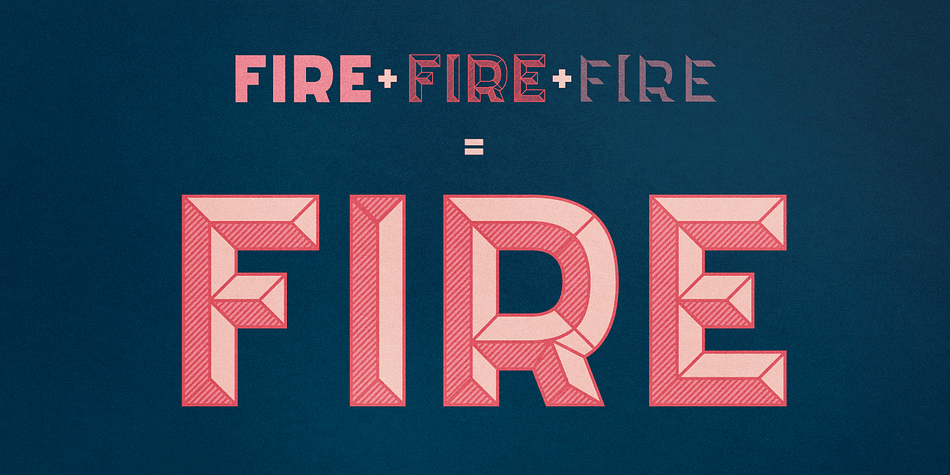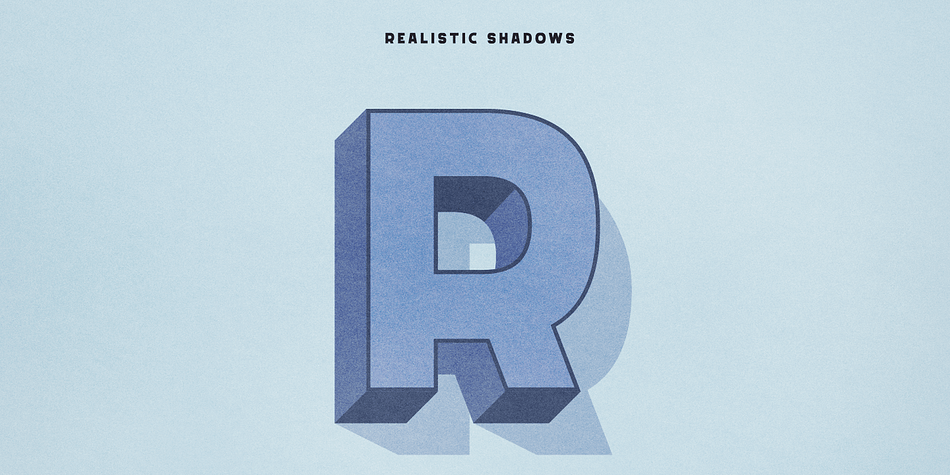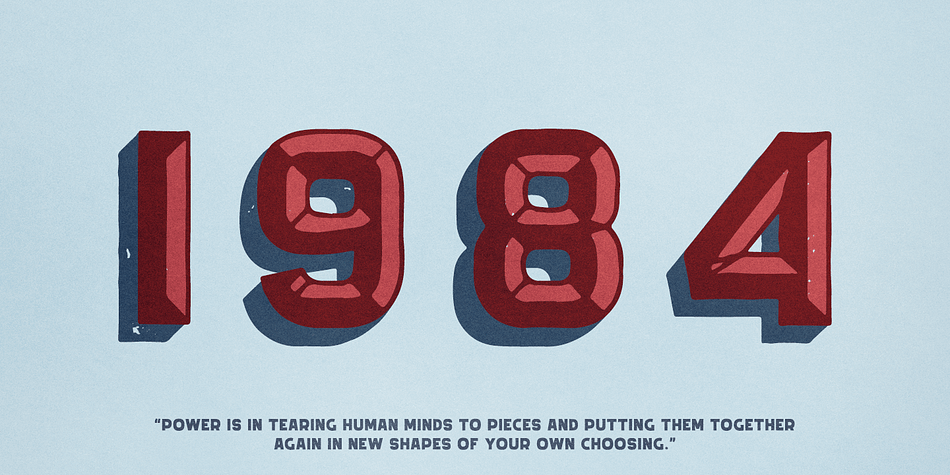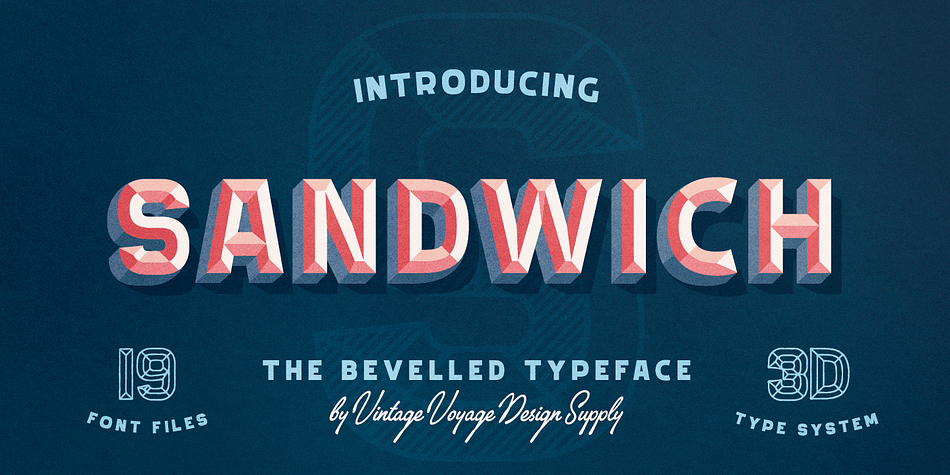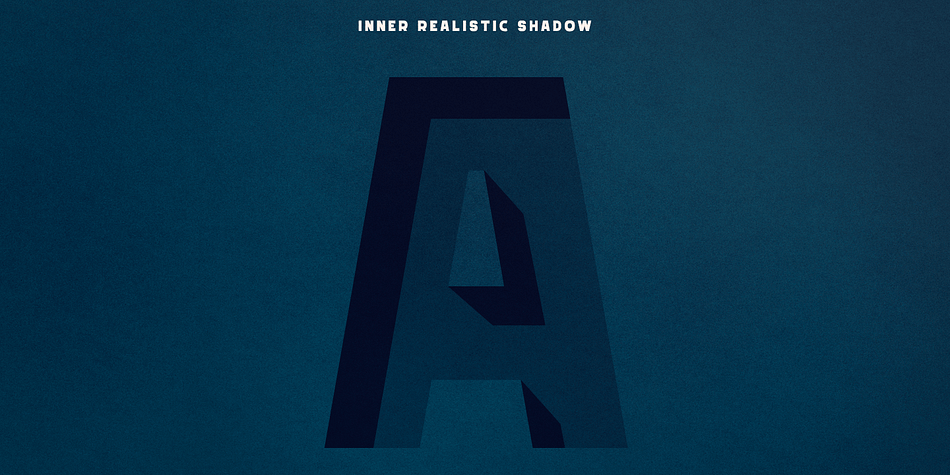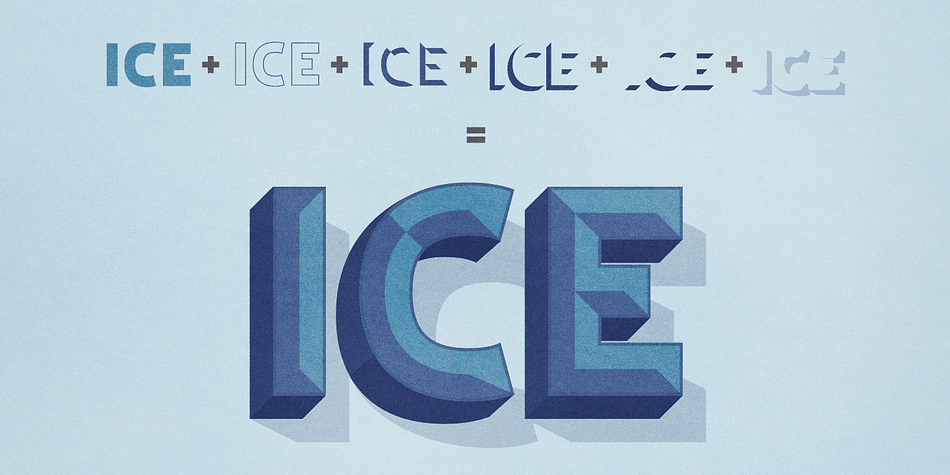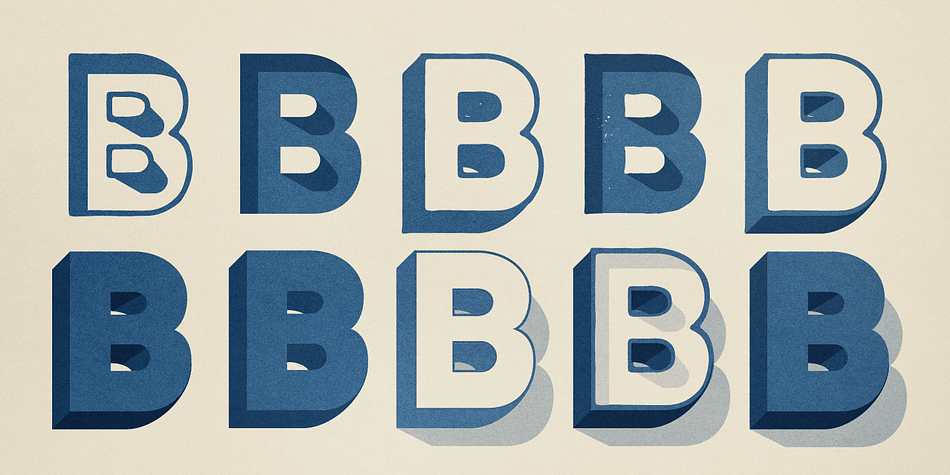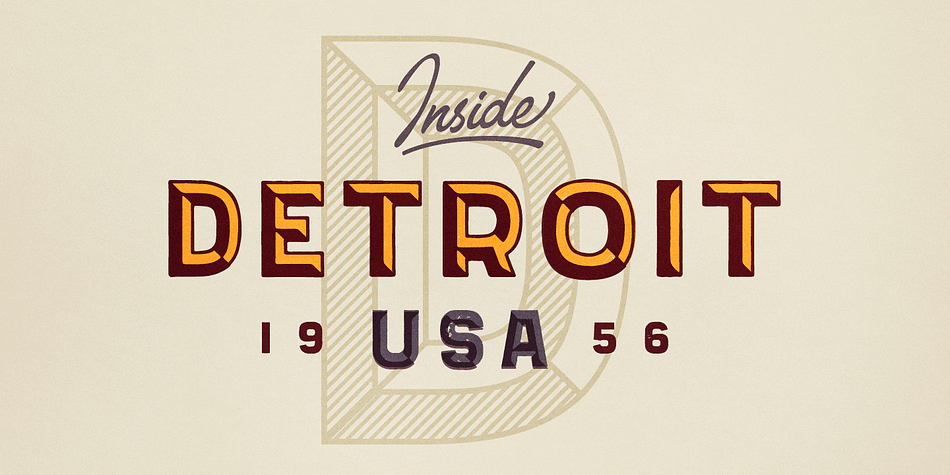
Sandwich 3D System is a display sans font family. This typeface has nineteen styles and was published by Vintage Voyage Design.
A beveled 3d type system with many font styles to give you a lot of variety of use. A layered system with sandwich construction principe give you unique 3D style for your words. You can use clean and modern version or, if you want, can be more retro look and use roughen styles. Sandwich is perfect for Logos, Signage, Posters, Apparel, Headlines, etc.
A perfect-constructed type with basic latin set of caps with numbers, symbols and punctuation. Has no multilingual characters (for the time being).